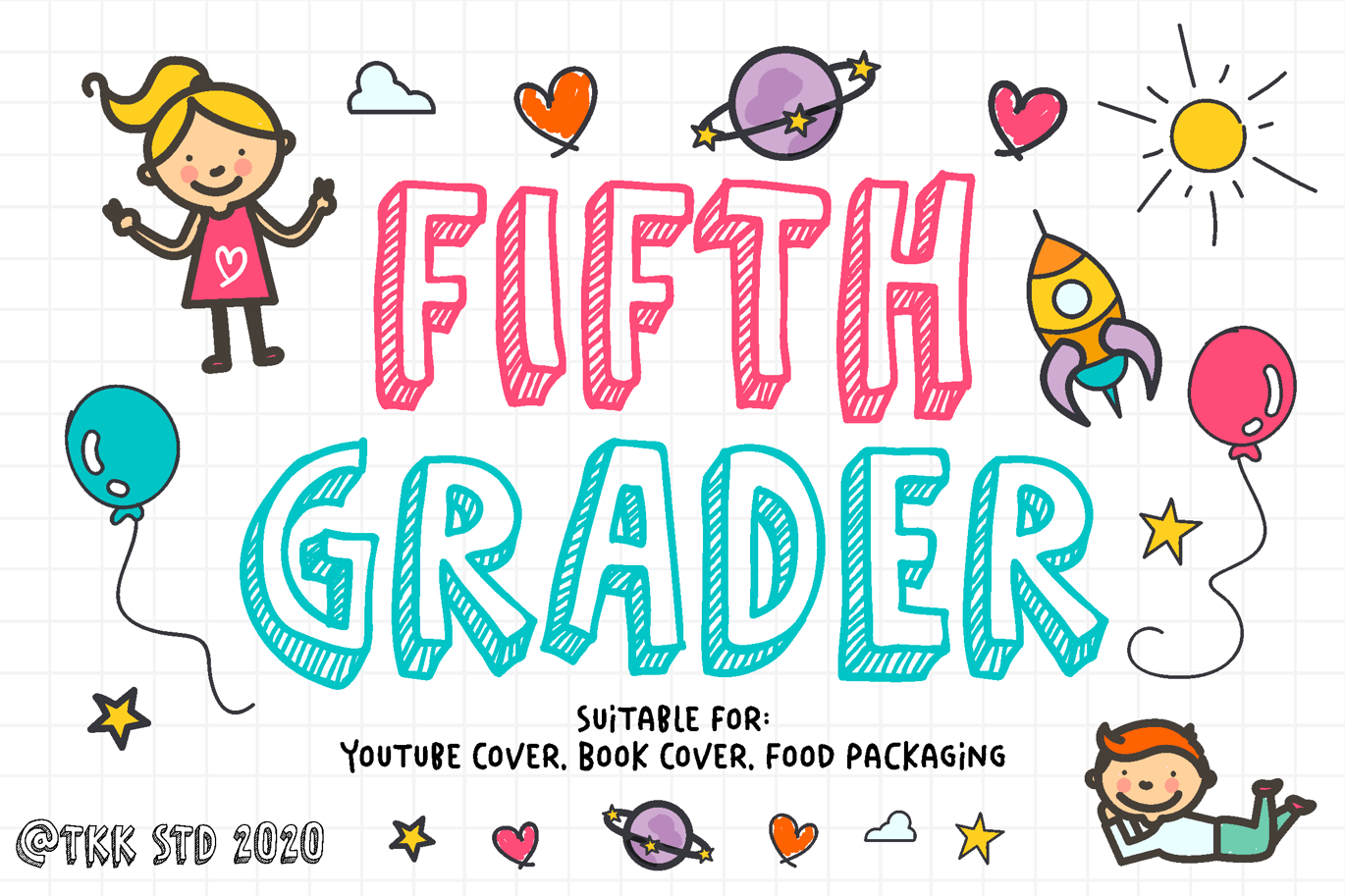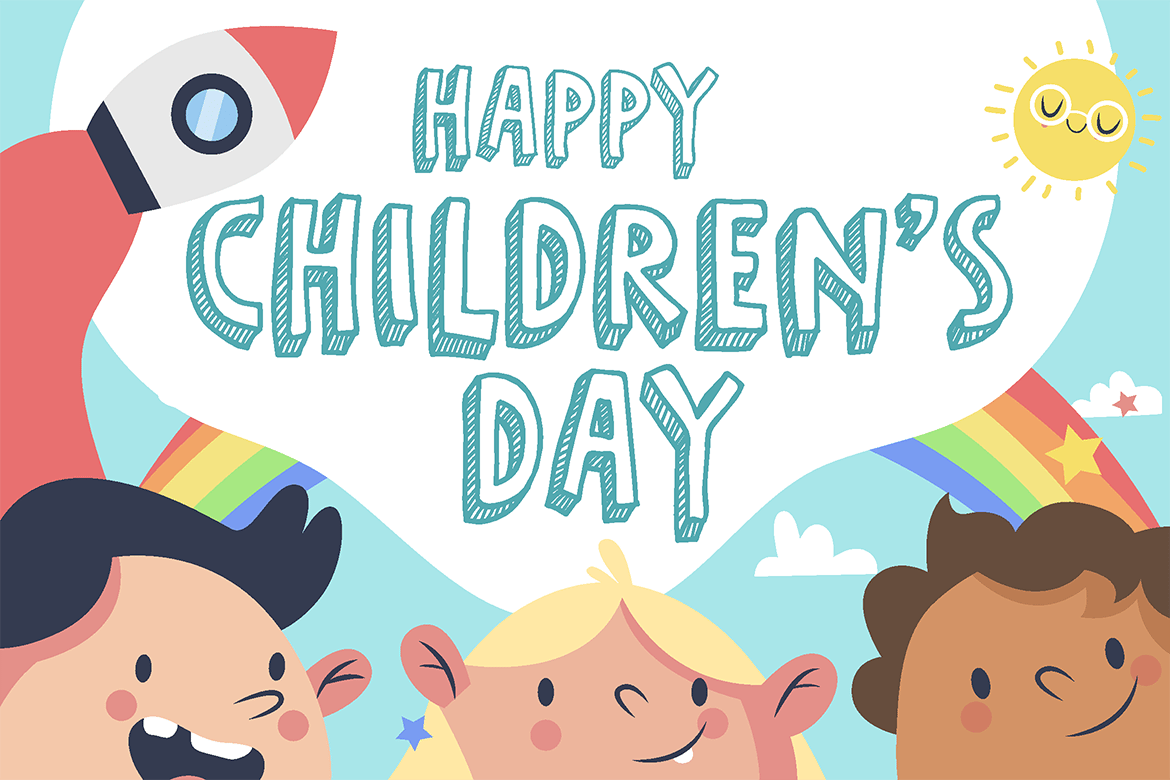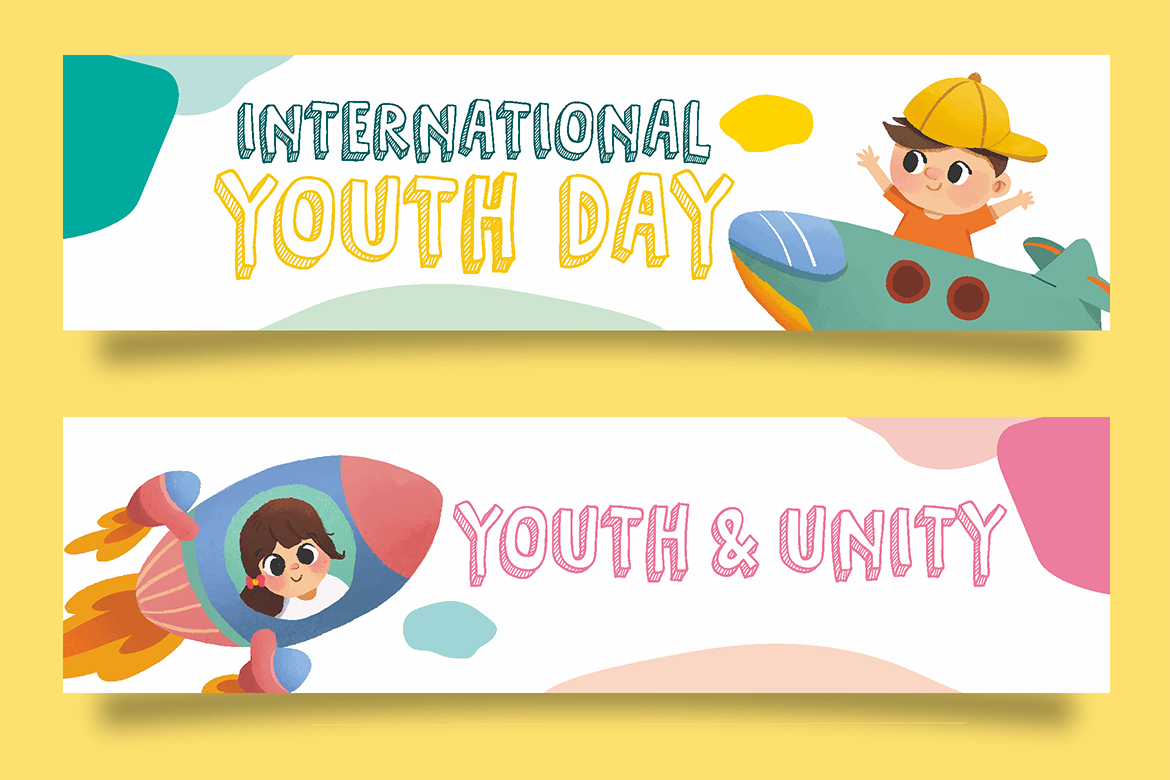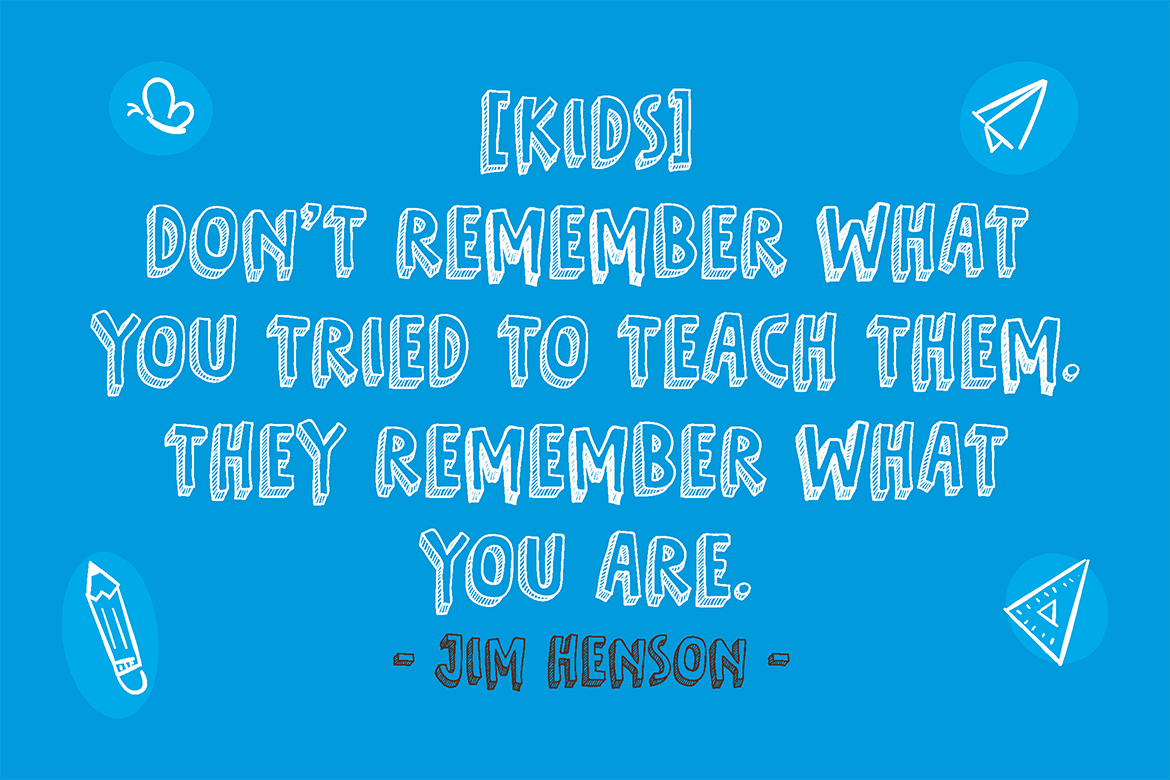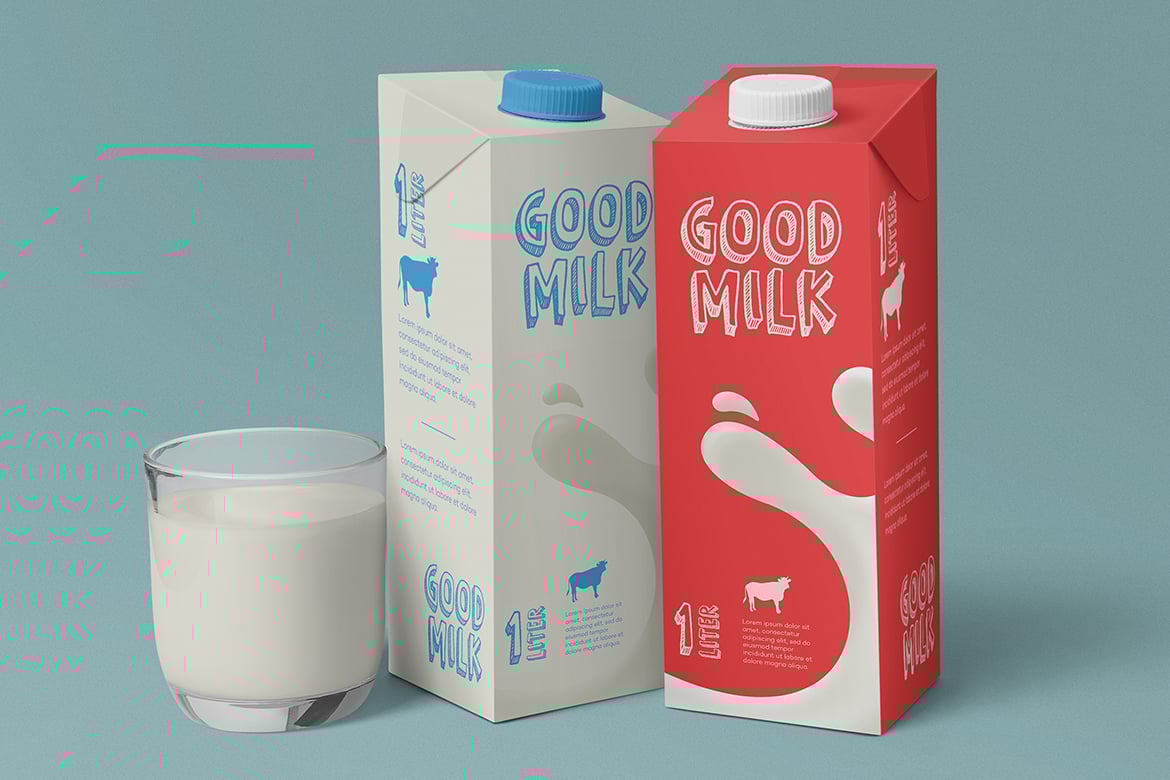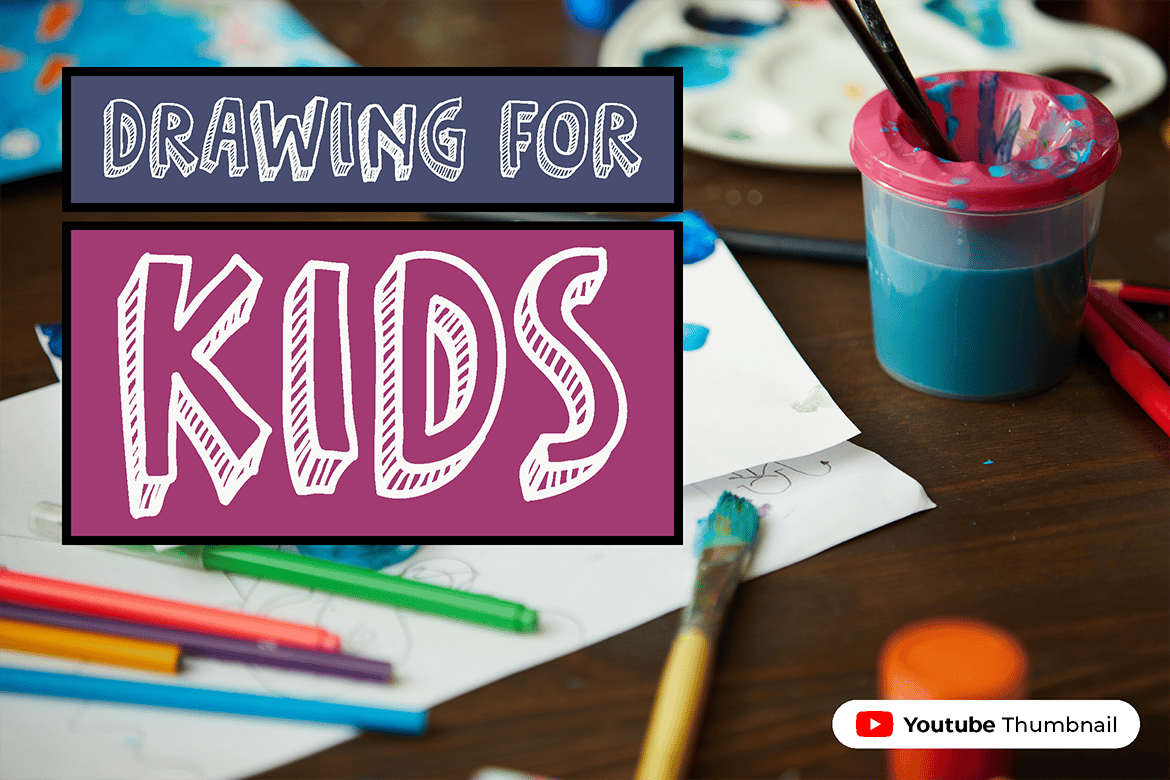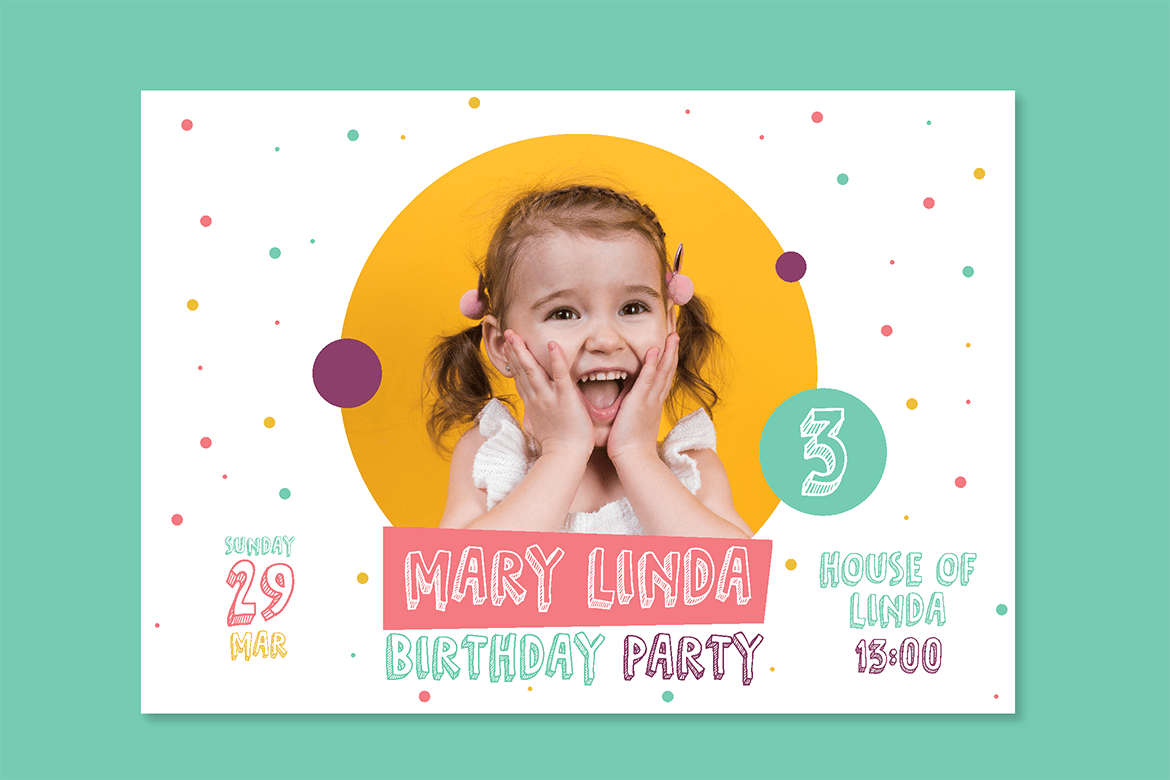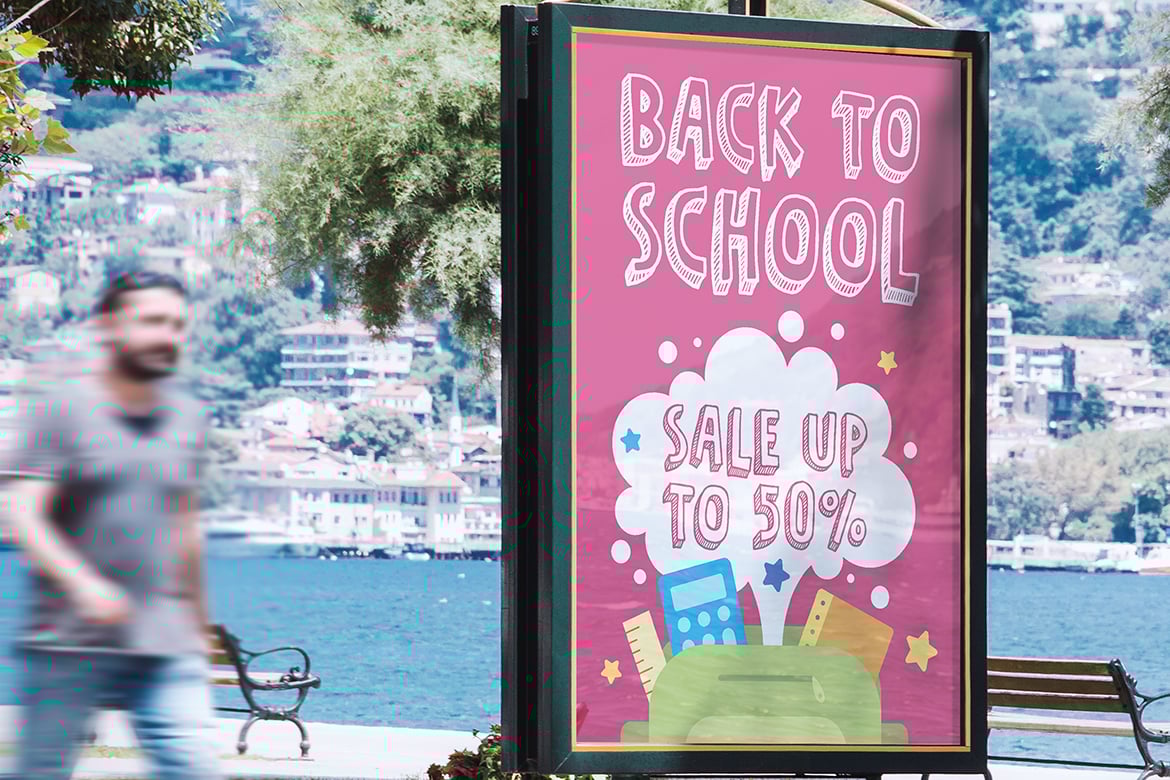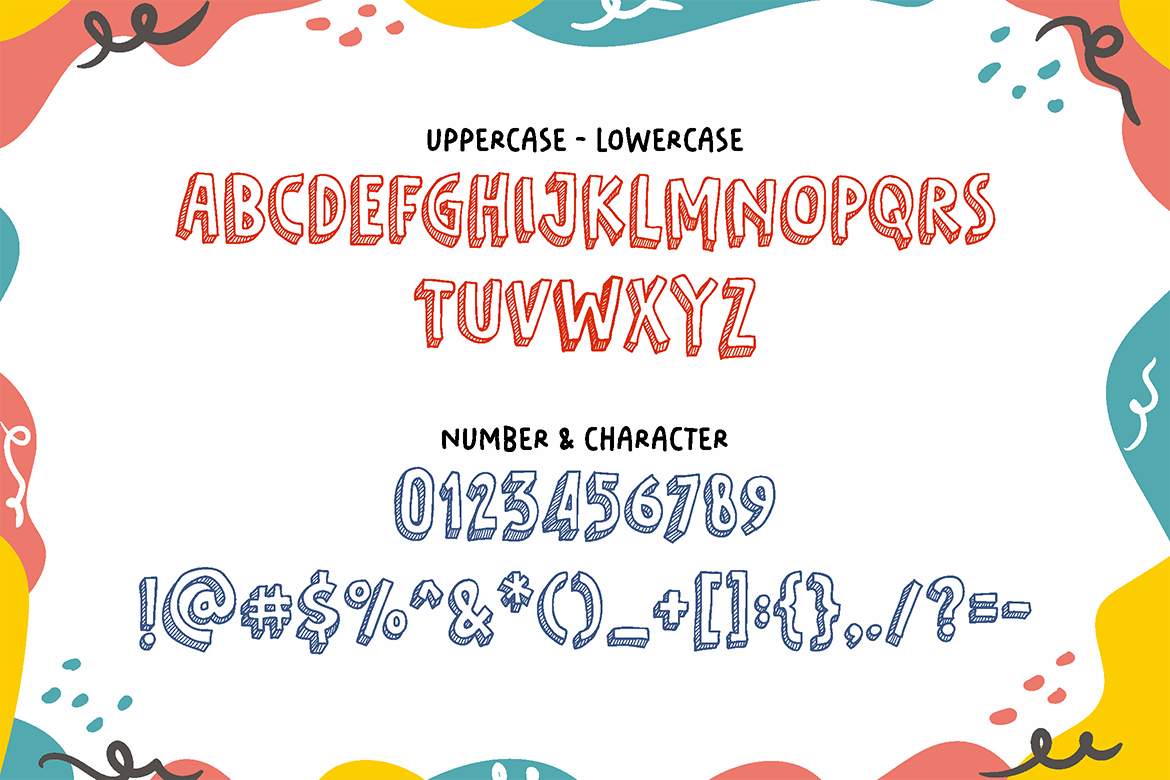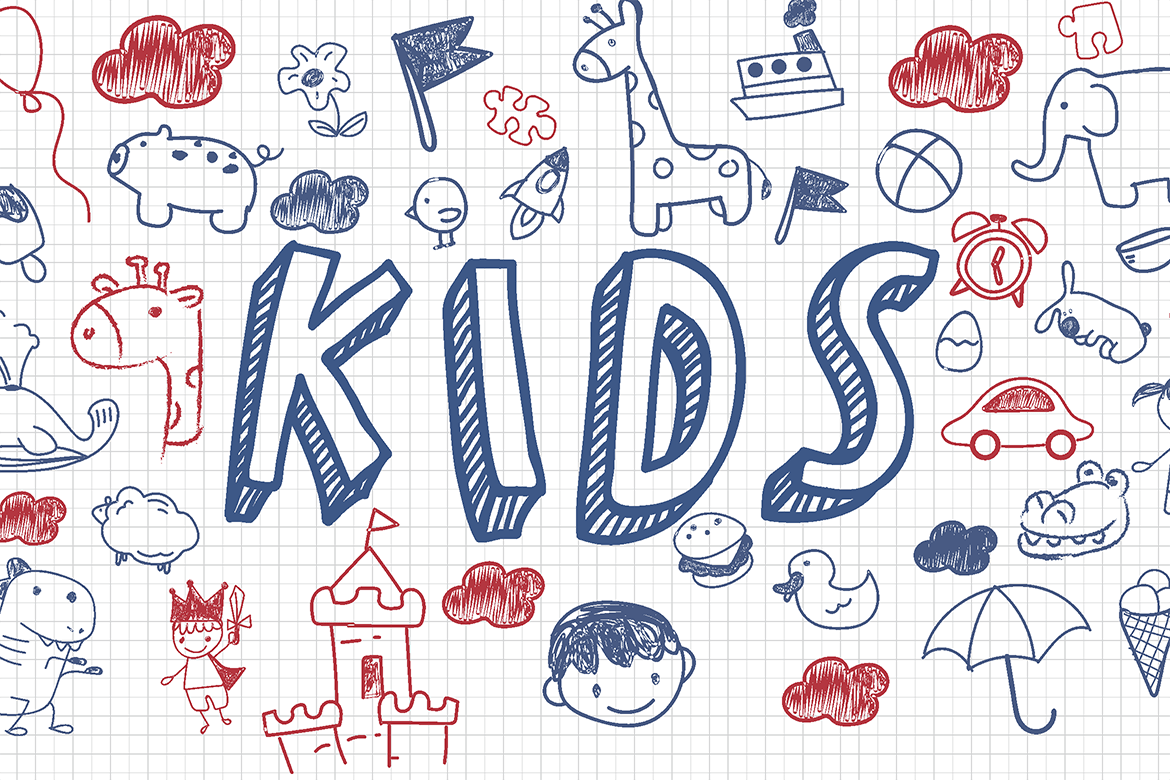
Fifth Grader – all caps funny doodle font
Fifth Grader – All caps doodle font
Are you smarter than a fifth grader?
Well, this font will emphasize that level of smartness of a children in every word it’s written.
Suit perfectly for Online Games, poster, movie title, fast food menu, magazine, youtube covers, youtube thumbnails, social media page covers and so on…